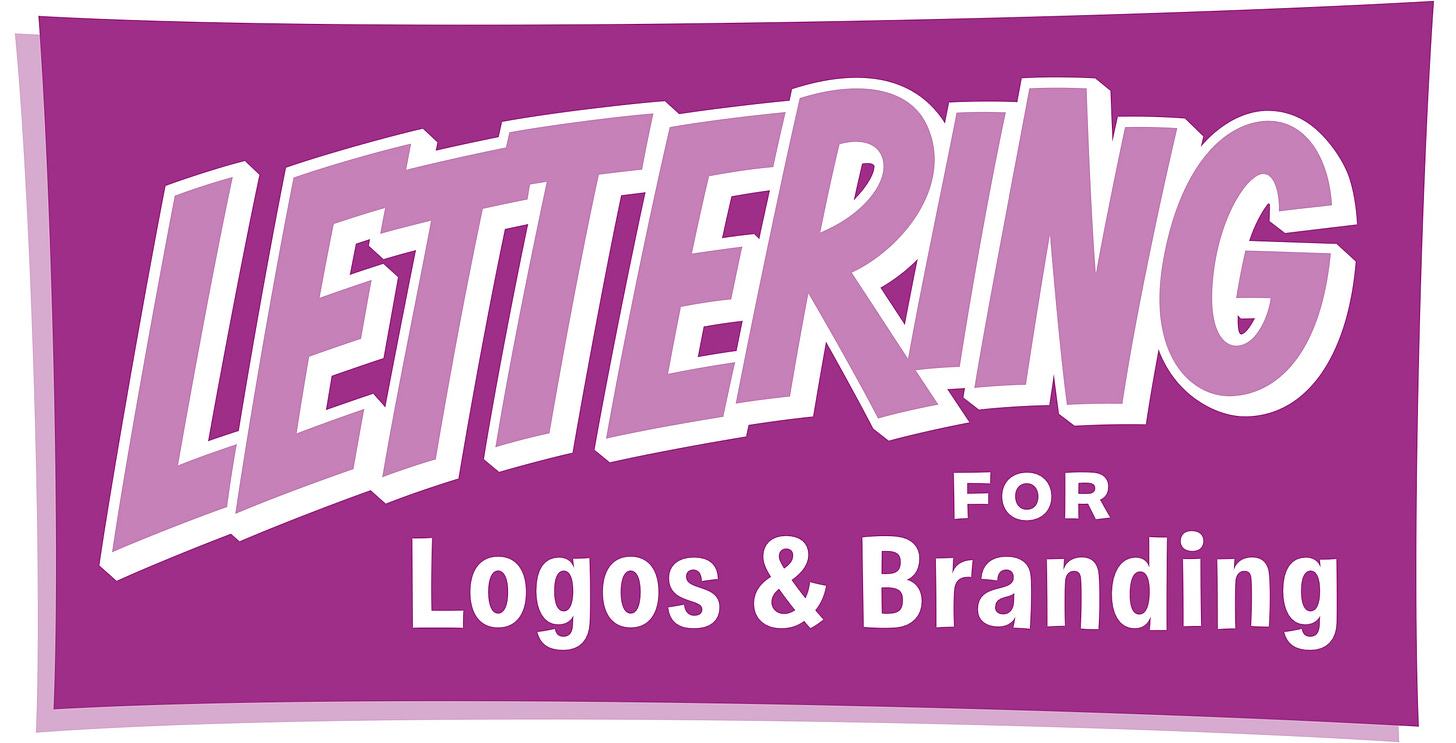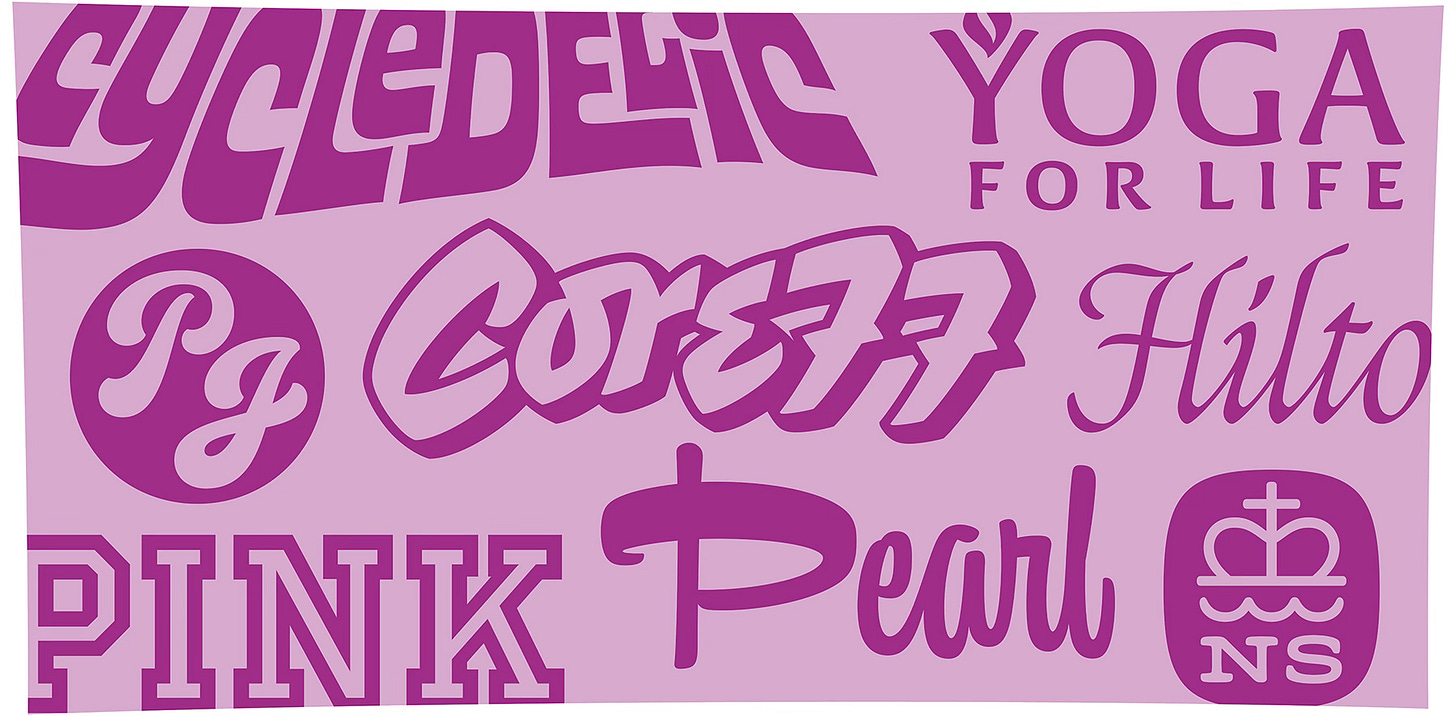
Successful brands understand that the secret to an unforgettable identity is a distinctive, one-of-a-kind logo. And nothing stands out from the crowd like custom lettering. A thoughtfully crafted wordmark doesn’t just look unique—it builds recognition, shapes public perception, and forges a strong emotional connection with an audience.
Hand-lettered logos can express an infinite range of moods